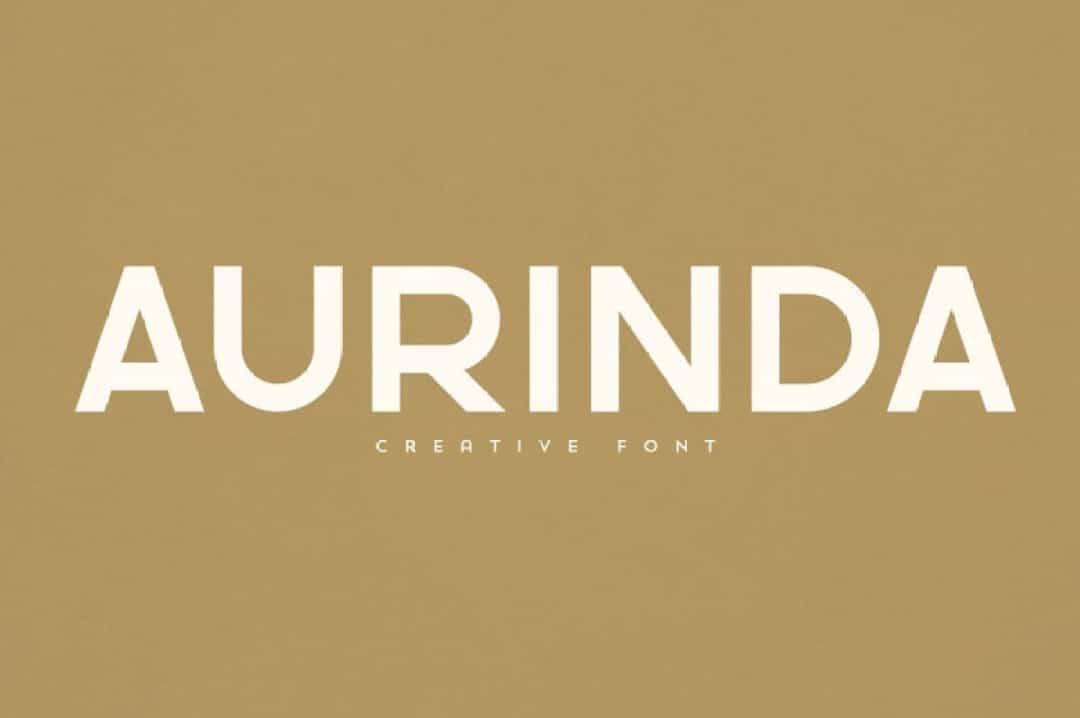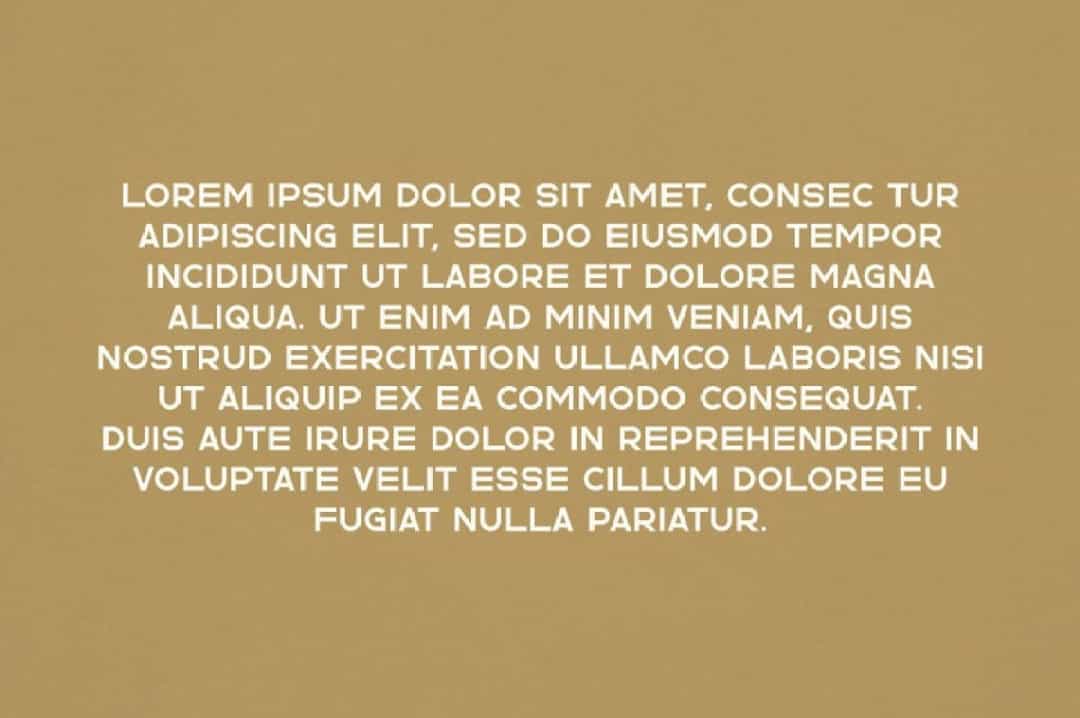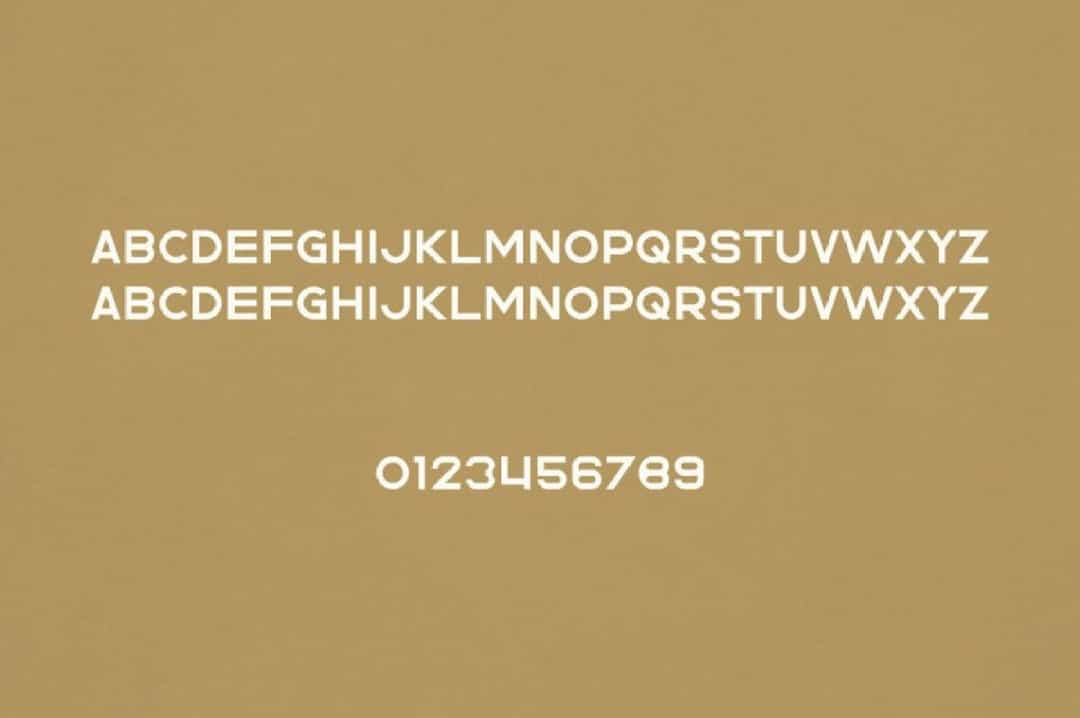
Aurinda is an elegant and flexible sans serif font that creates a captivating typography! Perfect for headlines, logos, branding or simple text applications; Aurinda will turn any text into something truly memorable! Ideal for use in branding design projects for homeware designs, packaging products magazines headlines or simply as text overlay on images!